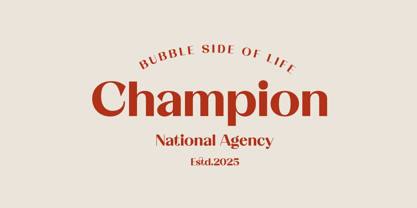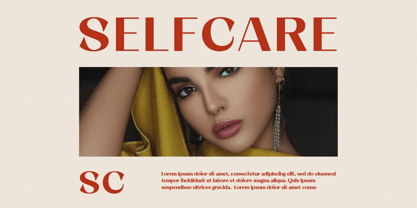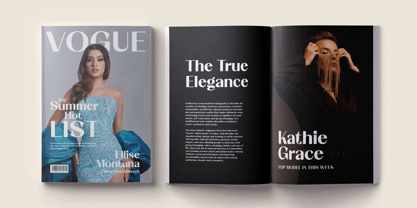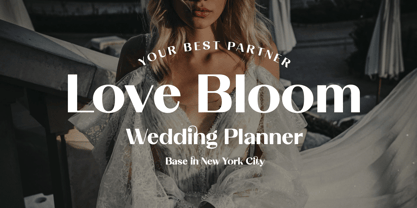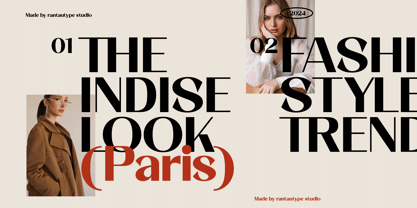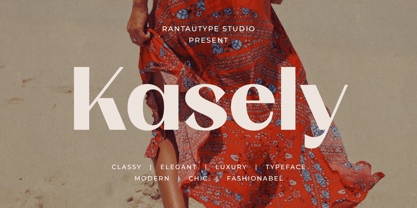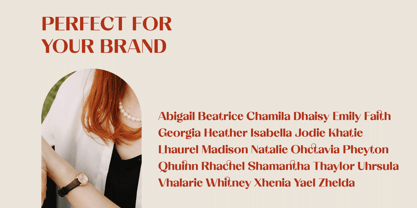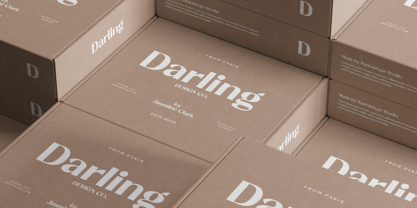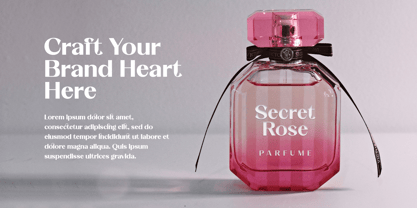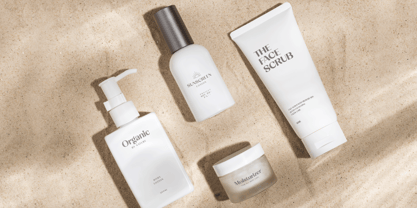
Kasely
by RantauType
The Kasely Font Family was designed by Yudi Pratama Chandra and published by RantauType. Kasely contains 2 styles and family package options. More about this family
Kasely is classy luxury font made with love and passion. Kasely is a professional choice for any creative endeavor, chic, lifestyle design such as logotype, advertisements, watermark on photography, stationery, branding project, display and magazine, invitation, corporate brand, product design, label, business project and many other project with modern touch.
• Standart Glyphs
• Numberial and Functional
• Alternate and Ligature
Fonts include Multilingual Character for: Afrikaans, Albanian, Asu, Basque, Bemba, Bena, Breton, Chiga, Cornish, Dutch, English, Estonian, Filipino, Finnish, Friulian, Galician, Gusii, Indonesian, Irish, Italian, Kabuverdianu, Kalenjin, Kinyarwanda, Luo, Luxembourgish, Luyia, Machame, Makhuwa-Meetto, Makonde, Malagasy, Manx, Morisyen, North, Ndebele, Nyankole, Oromo, Portuguese, Quechua, Romansh, Rombo, Rundi, Rwa, Samburu, Sango, Sangu, Scottish, Gaelic, Sena, Shambala, Shona, Soga, Somali, Spanish, Swahili, Swedish, Swiss, German.
Designers: Yudi Pratama Chandra
Foundry: RantauType